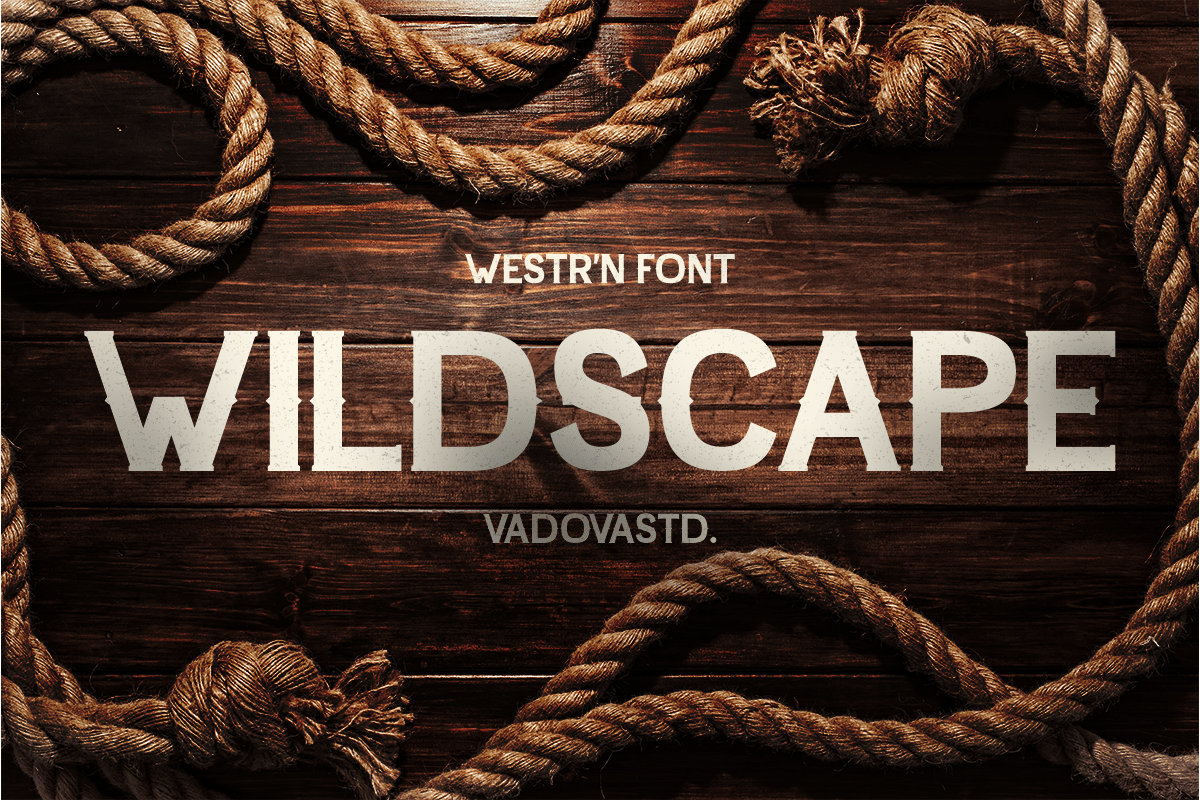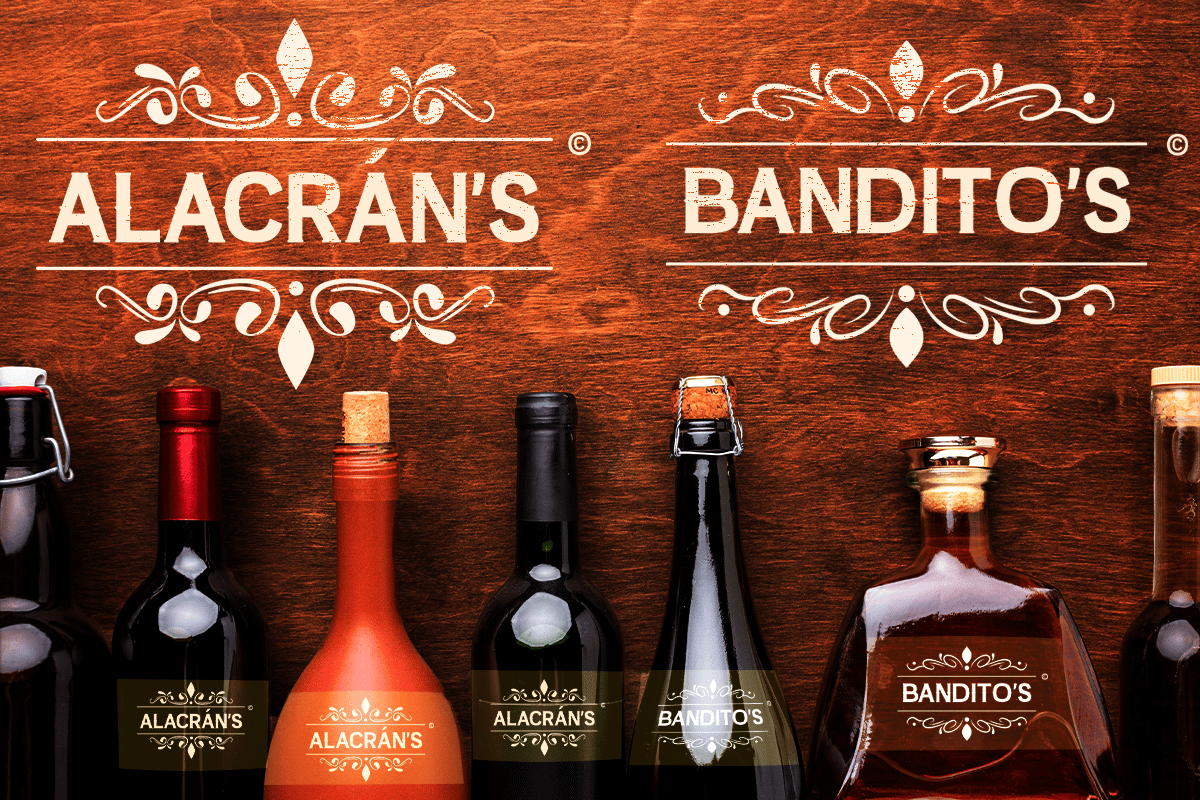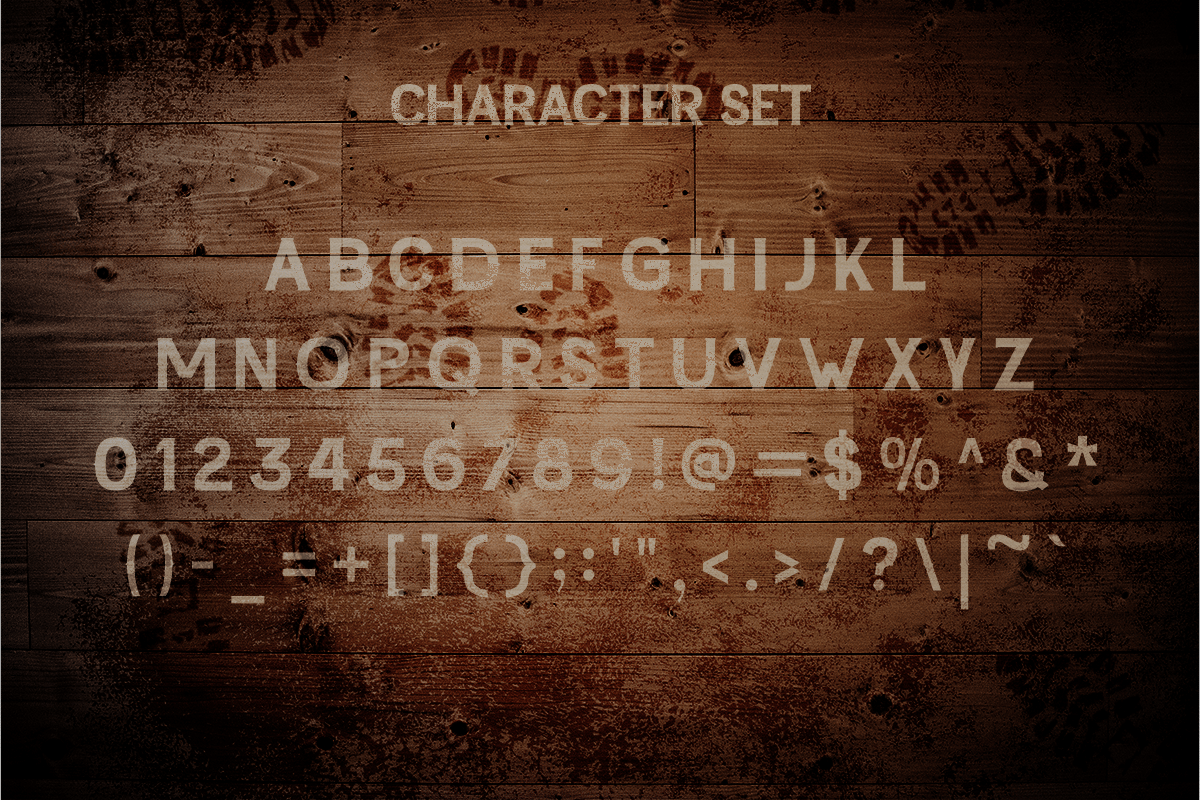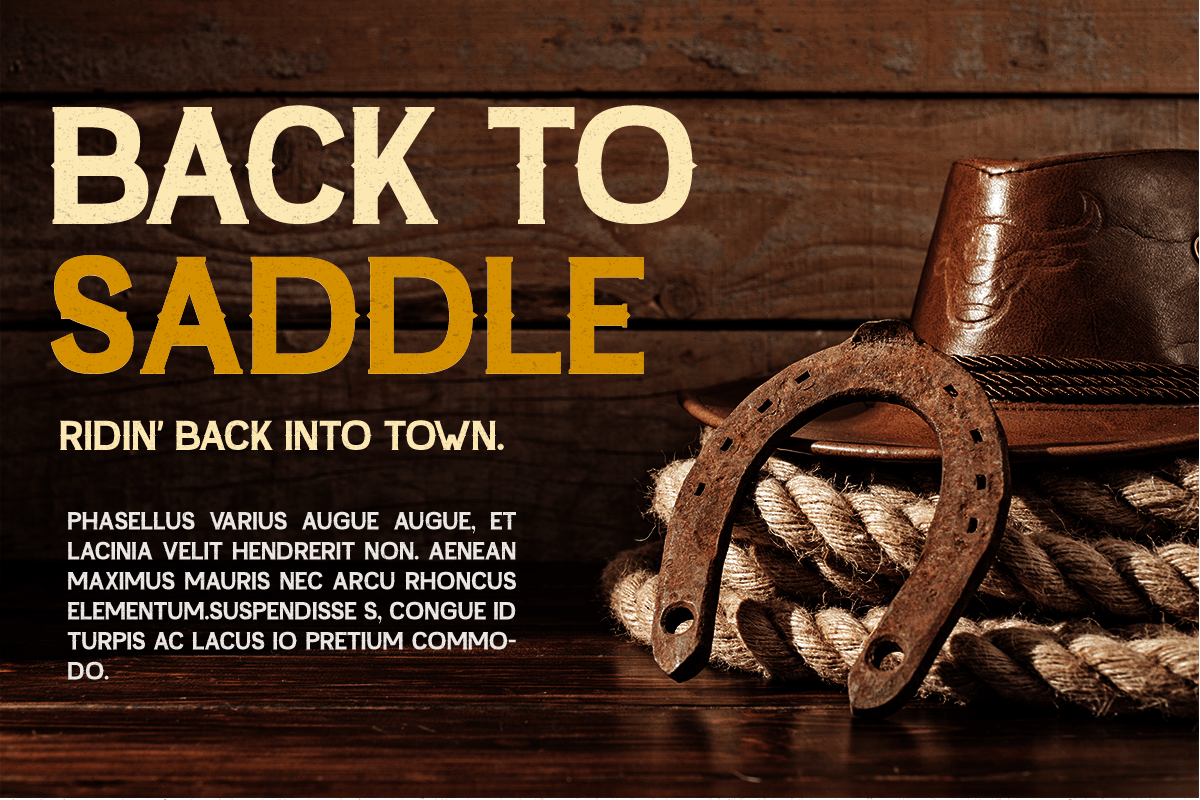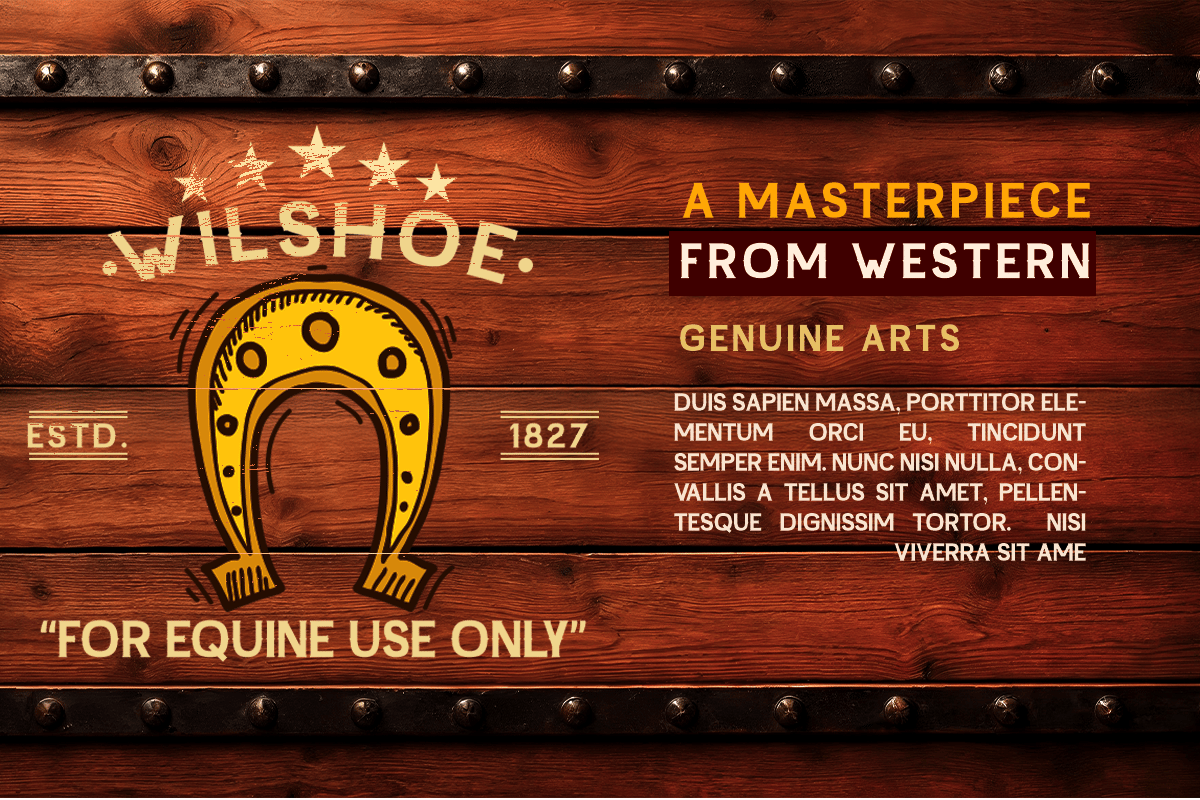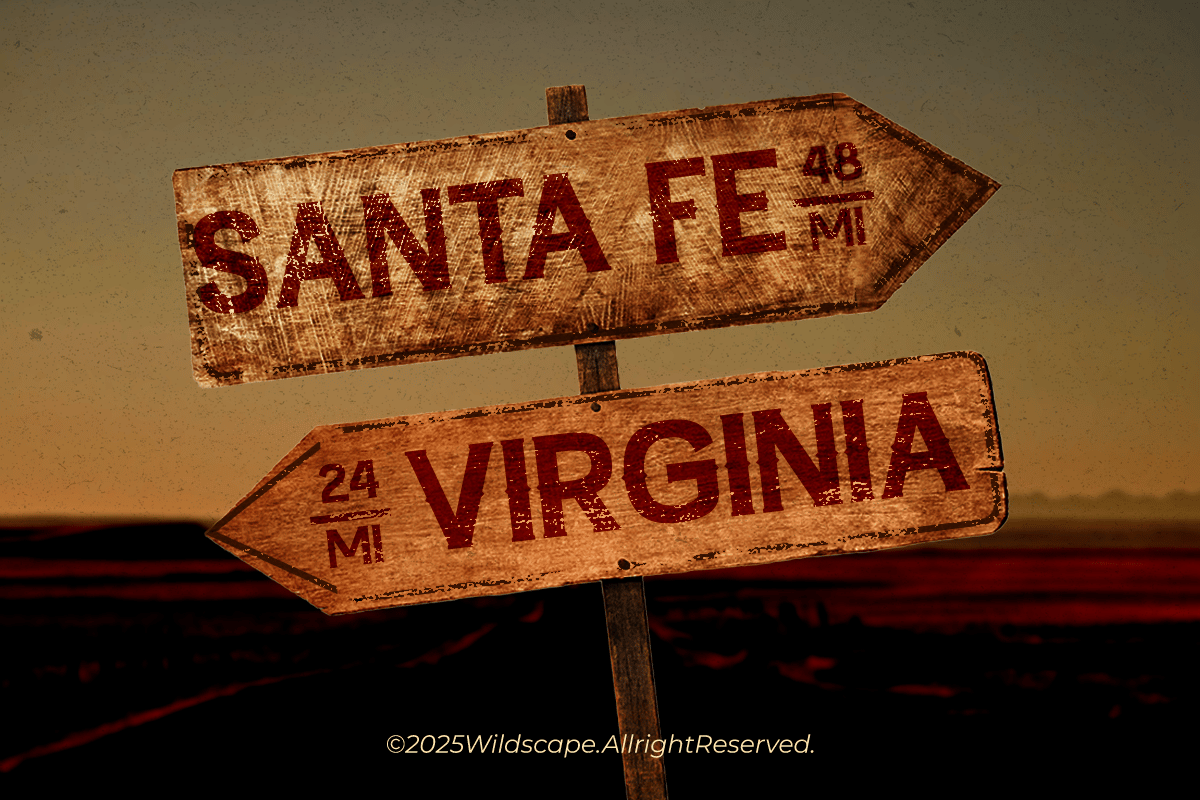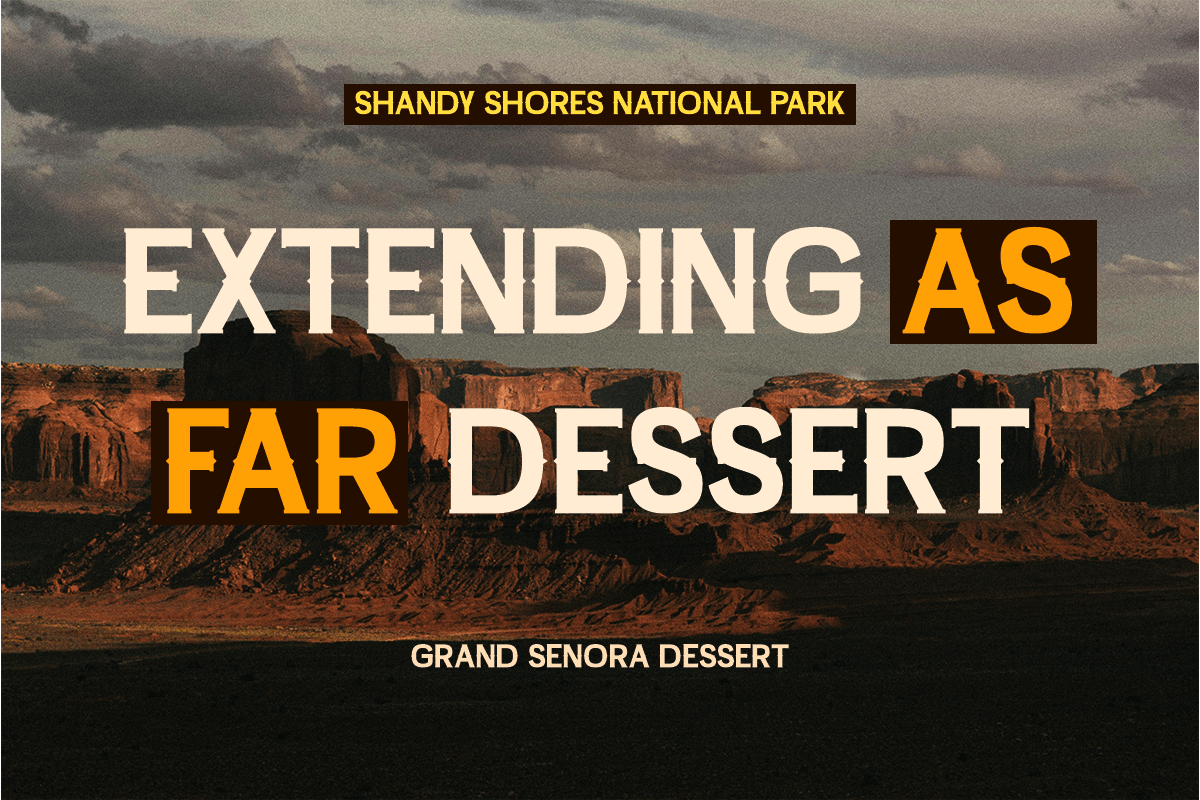
Wildscape Creative Font
Elevate your designs with Wildscape Creative Font, a Western-style font that embodies the rugged and adventurous spirit of the Wild West. With its bold, rustic lettering, it evokes images of old saloons, cowboy trails, and frontier landscapes. The font’s rough texture and strong presence make it an excellent choice for branding, posters, logotypes, and designs that need a bold, vintage, or outlaw aesthetic. Perfect for Western-themed projects, Wildscape brings an authentic touch to any design.